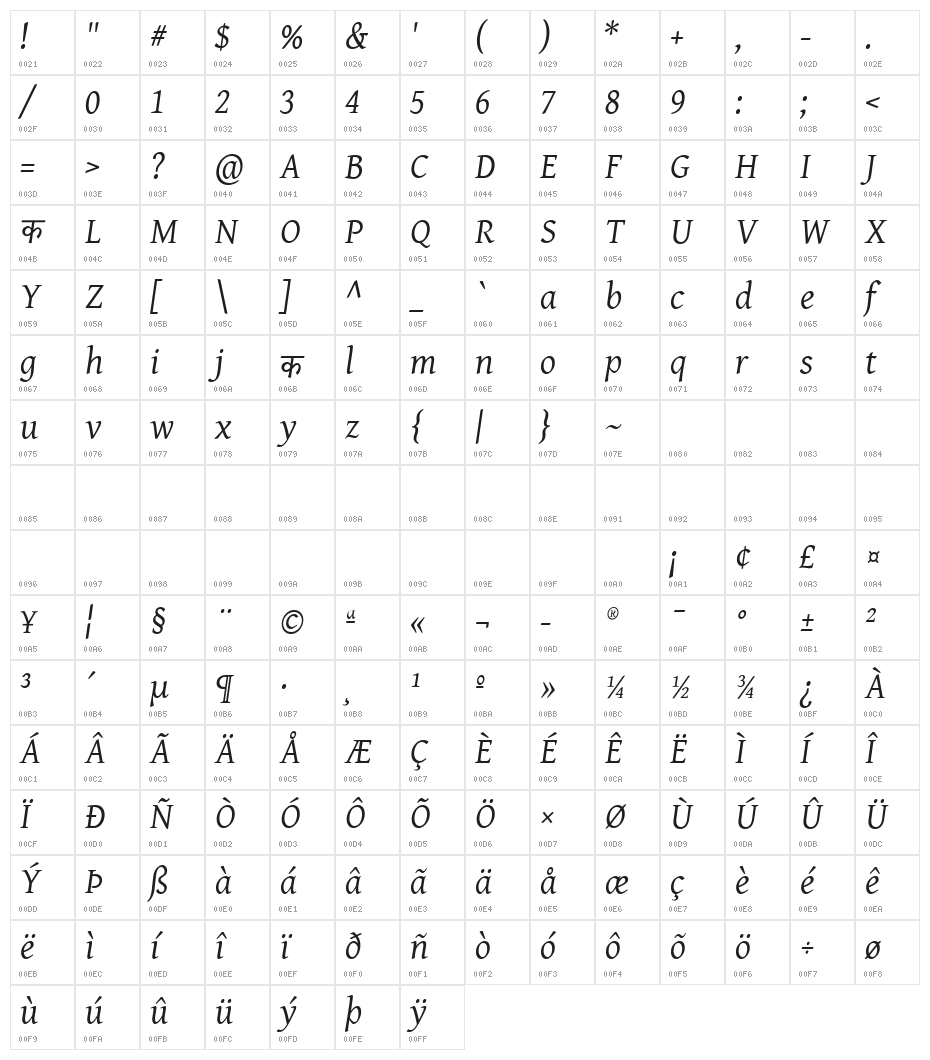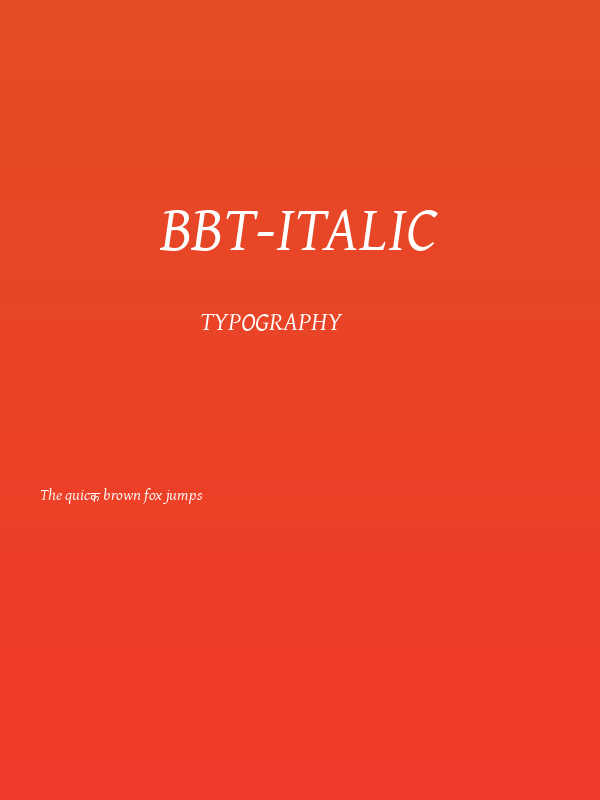
BBT-Italic Font
BBT-Italic Description
This font exhibits a classic serif style with a distinct italic slant, giving it an elegant and sophisticated appearance. The characters are well-proportioned, with smooth curves and sharp serifs that enhance readability. The uppercase letters are slightly taller than the lowercase, maintaining a traditional serif font structure. The numerals are clear and consistent, matching the overall style of the alphabet. Special characters are designed to complement the letters, ensuring a cohesive look across all text elements. This font is suitable for formal documents, invitations, and any project requiring a touch of elegance.
| Use Case | Headlines, Body text, Invitations |
| Proposed Projects | Ideal for formal documents, wedding invitations, book covers, and editorial design. |